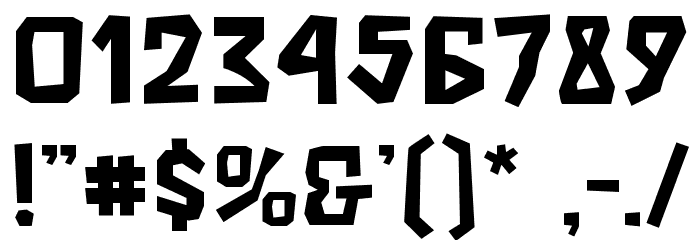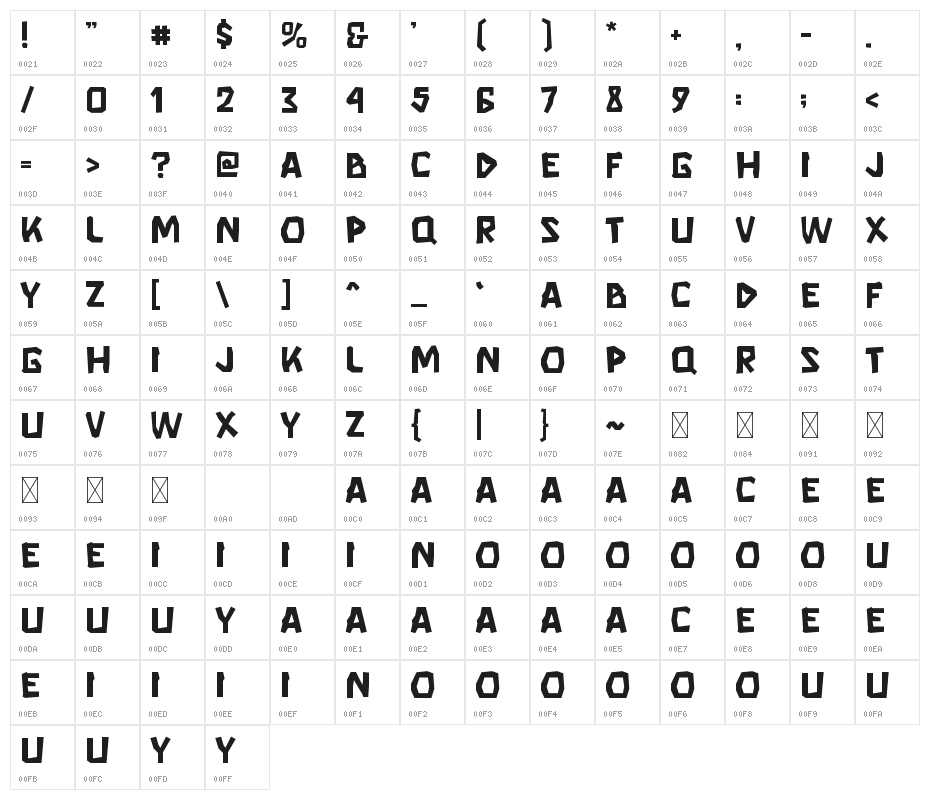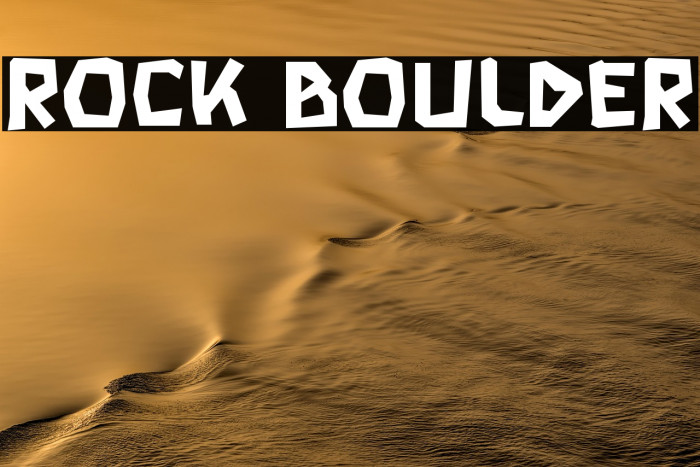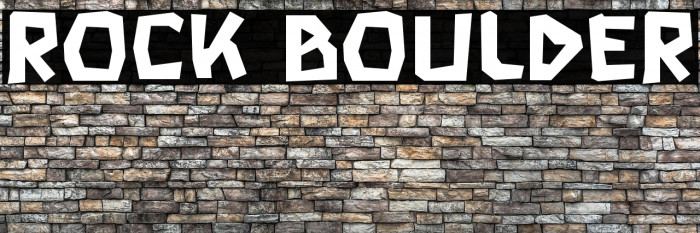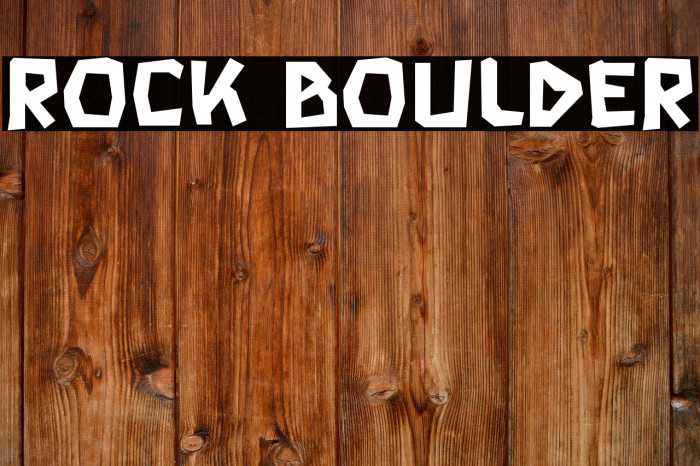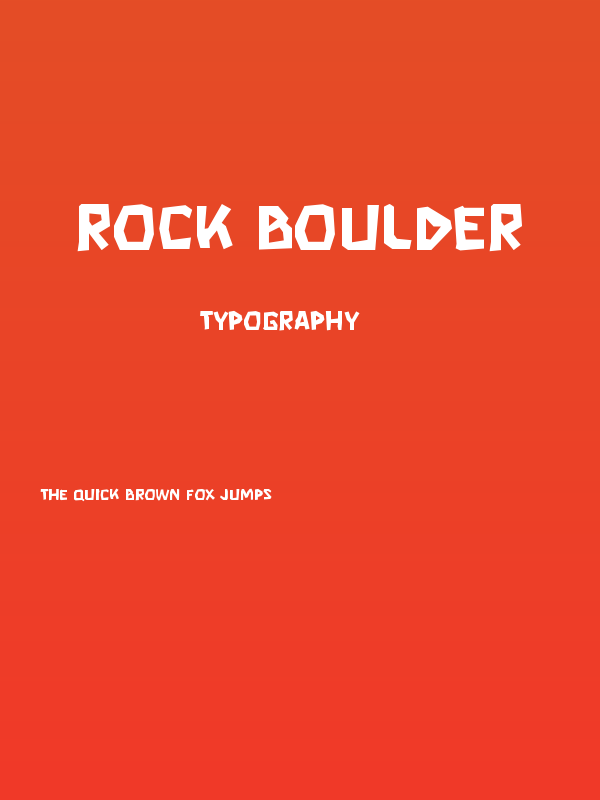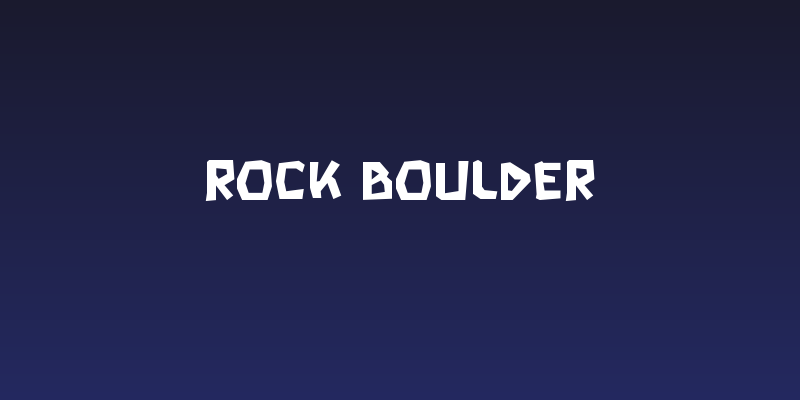
Rock Boulder Font
Rock Boulder Description
This font features a bold and rugged design, reminiscent of chiseled rock formations. The characters are angular and robust, with a distinct geometric quality that gives them a strong, impactful presence. The uppercase and lowercase letters maintain a consistent style, with sharp edges and a slightly irregular form that adds to the font's dynamic appearance. Numbers and special characters follow the same aesthetic, ensuring uniformity across all text elements. The font's boldness and unique style make it ideal for projects that require a strong visual impact.
| Proposed Projects | Ideal for branding, posters, headlines, and any design requiring a strong, impactful look. |